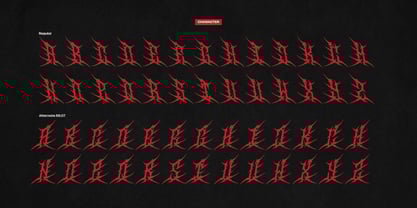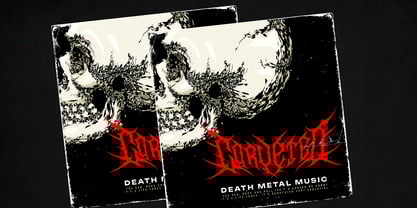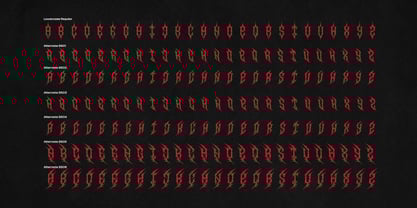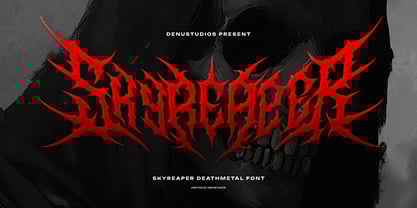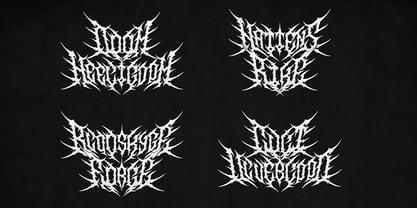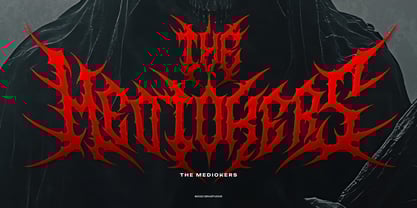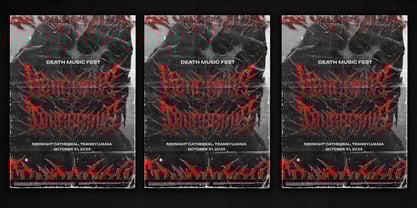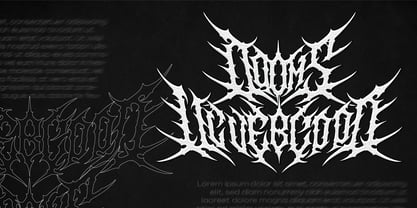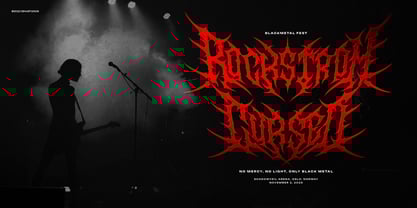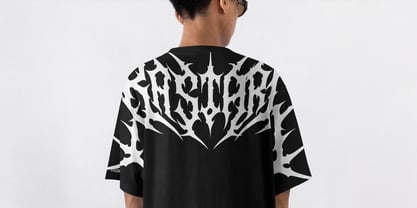
Skyreaper
by Denustudio
The Skyreaper Font Family was designed by Dede Nugraha and published by Denustudio. Skyreaper contains 1 styles. More about this family
Skyreaper | Death Metal Font, from Denustudios, suitable for any projects such as: logos, branding projects, homeware designs, product packaging, mugs, quotes, posters, shopping bags, t-shirts, book covers, name card, invitation cards, greeting cards, label, photography, watermark, special events, and all your other lovely projects that need Death Metal Font a taste.
Designers: Dede Nugraha
Foundry: Denustudio